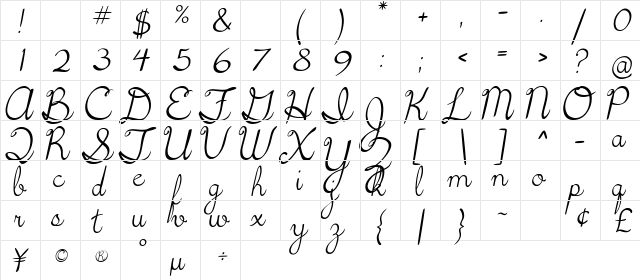
5th Grade Cursive Regular
Design Context for 5th Grade Cursive Typeface
5th Grade Cursive brings a calligraphic fluidity to the page — its connecting strokes and expressive curves give it an unmistakably human quality.
Font Pairing: Combine 5th Grade Cursive with a simple geometric sans for maximum contrast — the tension between flowing curves and clean structure is a classic typographic pairing.
Pro Tip: Pair 5th Grade Cursive with a clean sans-serif for supporting text. The contrast between fluid script and geometric structure creates an elegant typographic hierarchy.